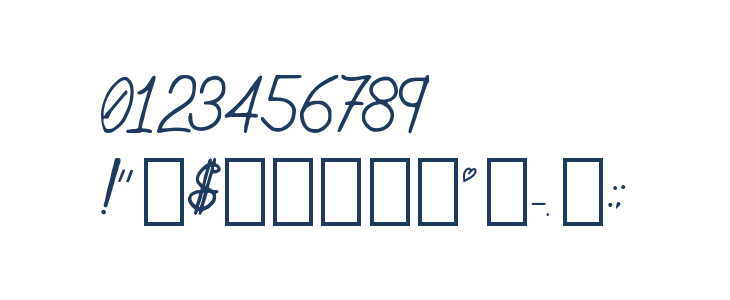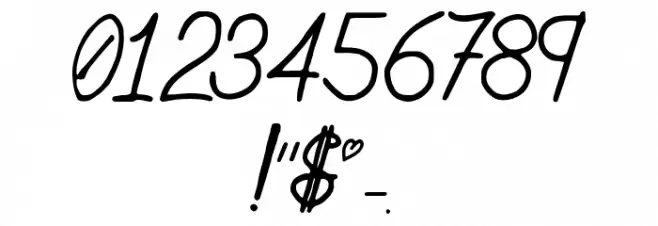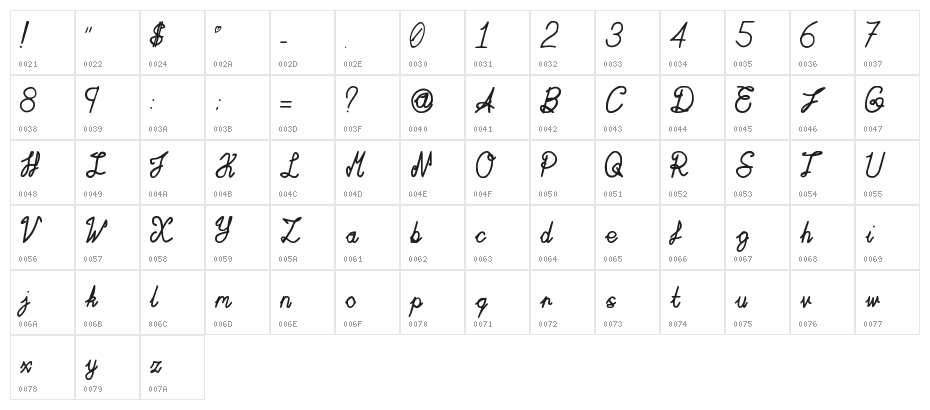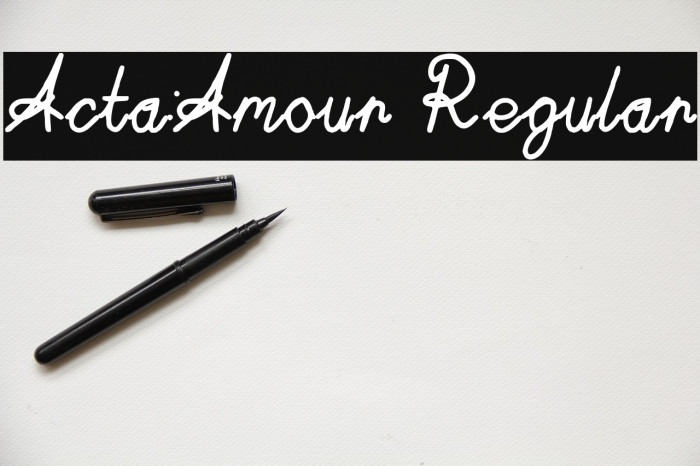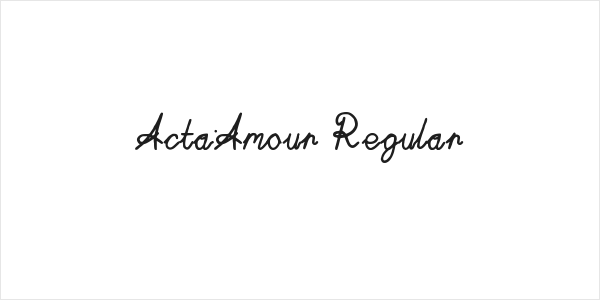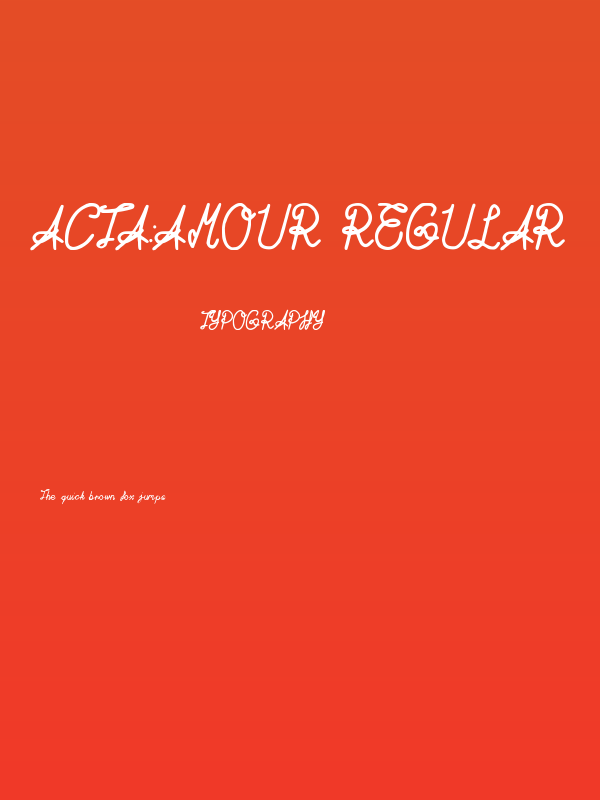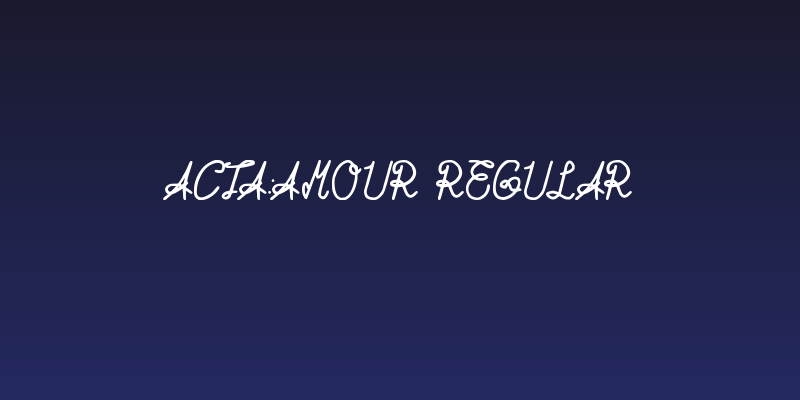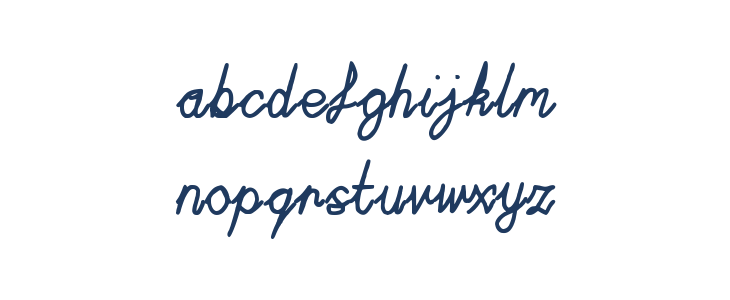
Acta:Amour Regular Font
Acta:Amour Regular Description
This font features a flowing, cursive style that exudes elegance and sophistication. The letters are interconnected with smooth, sweeping curves, giving it a handwritten appearance. The uppercase letters are bold and prominent, while the lowercase letters maintain a consistent flow, enhancing readability. The numerals are clear and distinct, matching the overall aesthetic. Special characters are creatively integrated, adding a playful touch to the design. This font is perfect for projects that require a personal, yet refined touch.
Overall StyleElegant, Handwritten
Use CaseLogos, Invitations, Personal Branding
Proposed ProjectsIdeal for wedding invitations, greeting cards, personal branding, and elegant logos.